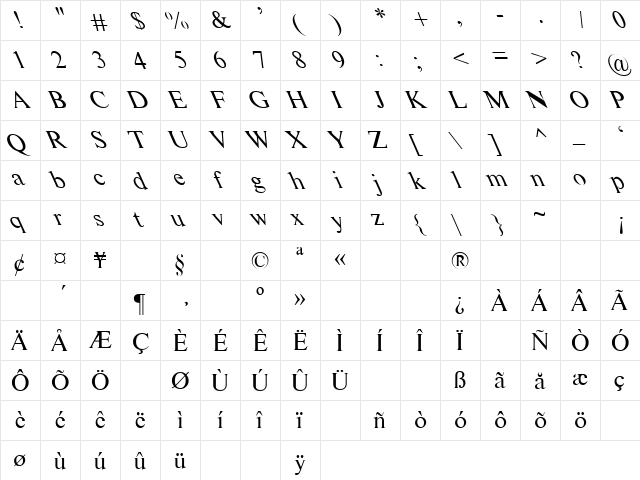
Walkin' The Dog 6 Regular
Design Context for Walkin' The Dog 6 Typeface
Walkin' The Dog 6 is a composed and adaptable typeface that performs quietly and consistently across a wide range of design contexts.